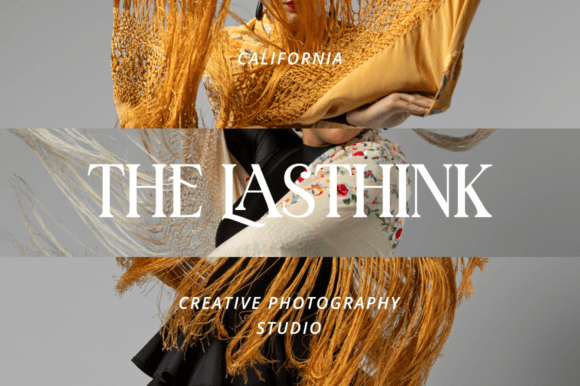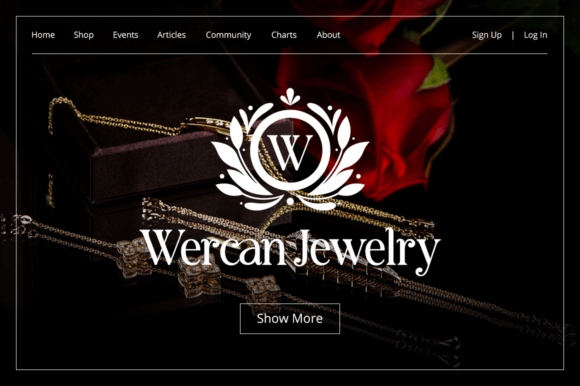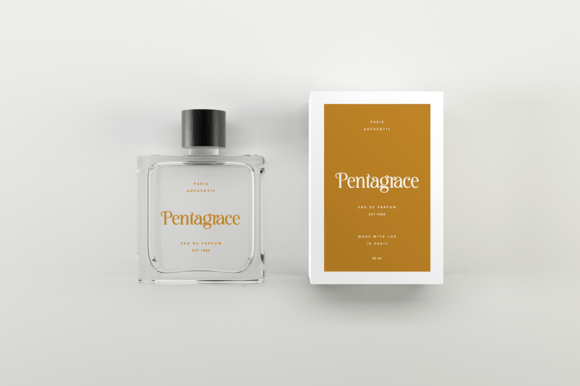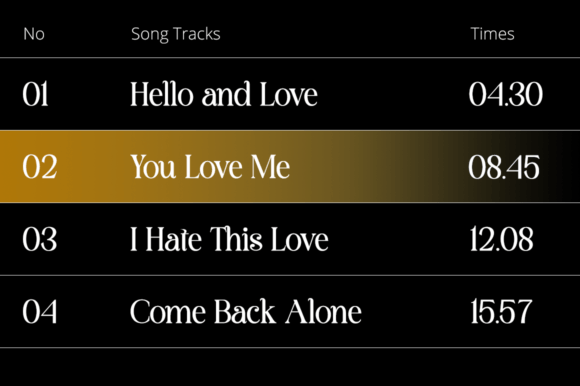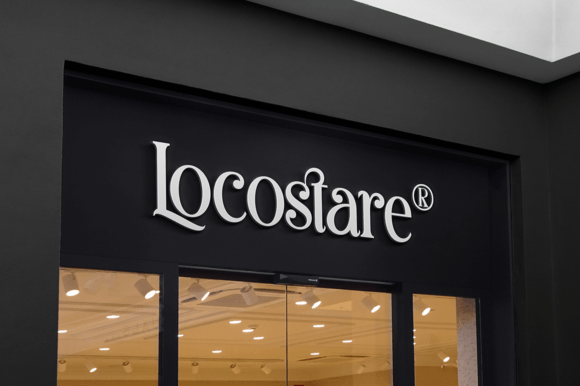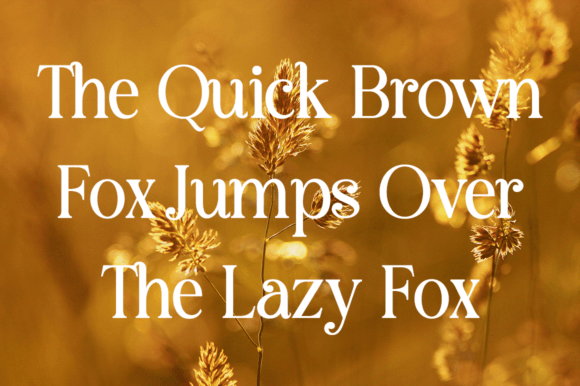
Discover the Elegance of Bestogram Font: Your New Go-To for Stunning Designs
Are you on the hunt for a font that adds a touch of elegance and sophistication to your designs? Look no further than Bestogram Font. This beautiful serif font is making waves in the design community for its neat, simple style, and versatility. Whether you’re working on a branding project, crafting a luxurious magazine, or simply looking for a font that can elevate your digital content, Bestogram is an excellent choice.
What Makes Bestogram Font Stand Out?
Bestogram Font is characterized by its elegant and distinct serif features. The serifs, which are the small lines or flourishes at the ends of the letters, add a classic touch to the font, making it perfect for designs that require a bit of sophistication. Despite its classic feel, Bestogram is surprisingly versatile. Its neat and simple style ensures that it remains legible and effective across various design applications.
One of the key advantages of Bestogram Font is its adaptability. It can be used for a wide variety of design projects, including:
- Branding and Logos: The elegant serifs make Bestogram perfect for luxury brands looking to convey a sense of tradition and reliability.
- Magazines and Editorials: Add a touch of class to your publications with Bestogram’s sophisticated look.
- Web Design: Enhance your website’s typography with a font that is both classic and modern.
- Packaging: Make your product stand out with elegant typography that commands attention.
Why Bestogram Could Be Your New Favorite Font
There are several reasons why Bestogram Font might just become your go-to choice for future projects:
- Elegance: Bestogram brings an air of sophistication to any design, making it perfect for projects that require a bit of luxury.
- Legibility: Despite its elegant features, Bestogram remains highly legible, even at smaller sizes.
- Versatility: As mentioned, its adaptability makes it suitable for a wide range of design applications.
- Simplicity: The clean lines and simple style ensure that your designs remain uncluttered and focused.
How to Use Bestogram Font Effectively
To make the most of Bestogram Font, consider the following tips:
- Pair it with Sans-Serif Fonts: For a modern contrast, try pairing Bestogram with a clean sans-serif font for headings and body text.
- Experiment with Sizes: Play around with different sizes to emphasize certain parts of your design.
- Adjust Line Spacing: Make sure to adjust the line spacing to ensure your text is easy to read.
Bestogram Font is a beautiful addition to any designer’s toolkit. Its elegant serifs, combined with its simplicity and legibility, make it a versatile choice suitable for a wide range of projects. Whether you’re aiming to create a luxurious brand image, craft a stunning editorial, or simply enhance your digital content, Bestogram is a font worth considering. Its potential to become your new favorite go-to font is undeniable, so why not give it a try and see how it can elevate your designs?
With Bestogram Font, you’re not just choosing a typeface; you’re adding a touch of elegance and sophistication to your work. Experience the difference it can make in your designs today.